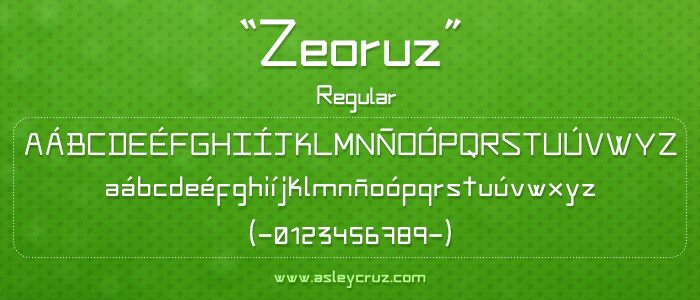
Zeoruz by Asley Cruz is a free techno display font with tall, sharply engineered letters and a spare futuristic profile built from straight strokes and severe angles. Clipped corners and abrupt width shifts suggest custom machine labeling.
As an interface-style title, it can shape game menus, science-fiction posters, electronic music artwork, and technology event graphics with a precise industrial edge. The font is most convincing in game branding, where its angular forms can echo control panels, spacecraft markings, circuit diagrams, and other on-screen hardware.